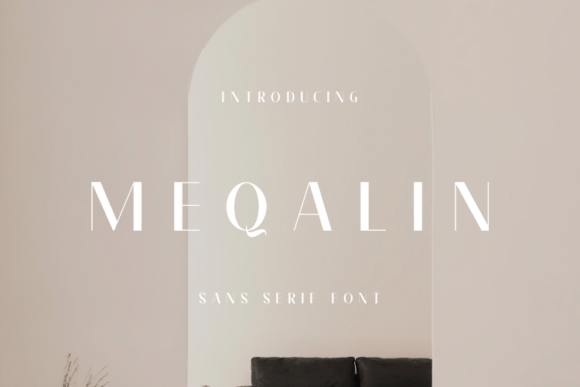
Meet Meqalin, the font that will make your designs dance off the page! This sans serif font exudes confidence and style, adding an instant touch of trendiness to your projects. With its clean lines and perfectly balanced curves, Meqalin is the perfect choice for creating captivating logos, eye-catching social media posts, or stunning website designs.
Immerse yourself in the world of Meqalin and let your creativity soar. Its effortless flow and versatile nature make it ideal for a wide range of projects, from branding and marketing materials to personal designs and invitations. Unleash your imagination and see your ideas come to life with Meqalin's enchanting presence.
Step into the spotlight with Meqalin, the font that commands attention. Its bold and assertive character ensures that your designs will leave a lasting impression. Whether you're looking to create a striking logo that reflects your brand's boldness or craft Instagram bios that captivate your audience, Meqalin is your ultimate companion.
But Meqalin is more than just a pretty face. Its PUA encoding grants you access to a treasure trove of glyphs, empowering you to add intricate details and unique flair to your designs. Experiment with different combinations and unlock a world of creative possibilities. Meqalin is the key to unlocking your design potential!
With Meqalin at your disposal, you'll never have a dull design moment again. This font is your passport to a world of visual delight, where your projects will shine brighter than ever before. Don't settle for ordinary fonts. Embrace Meqalin and let your creativity soar to new heights!